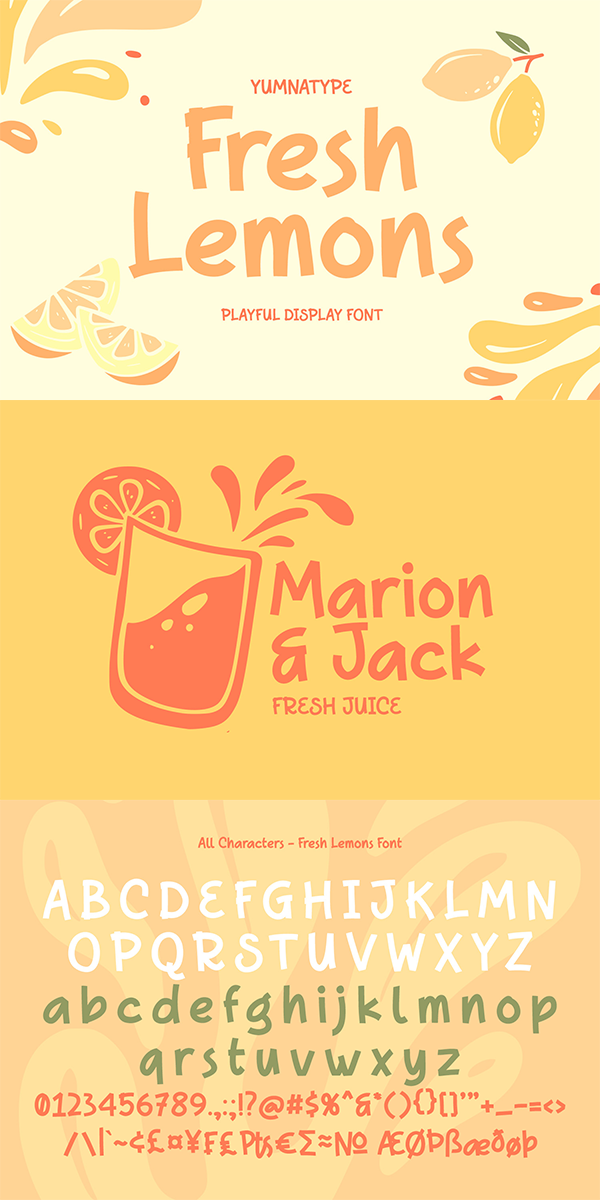
Fresh Lemons Font
About Fresh Lemons
Fresh Lemons is a visually amazing display font with thin lines suitably applied for a more elegant, modern looking display. In addition, such a font shows professional, high quality nuances on your designs due to the simple forms and consistent proportions to be legible enough. You will receive a clipart as a bonus and you can also enjoy the available features here.
Fresh Lemons fits best for various design projects, such as brandings, posters, banners, headings, magazine covers, quotes, invitations, name cards, printed products, merchandise, social media, etc. Find out more ways to use this font by taking a look at the font preview.